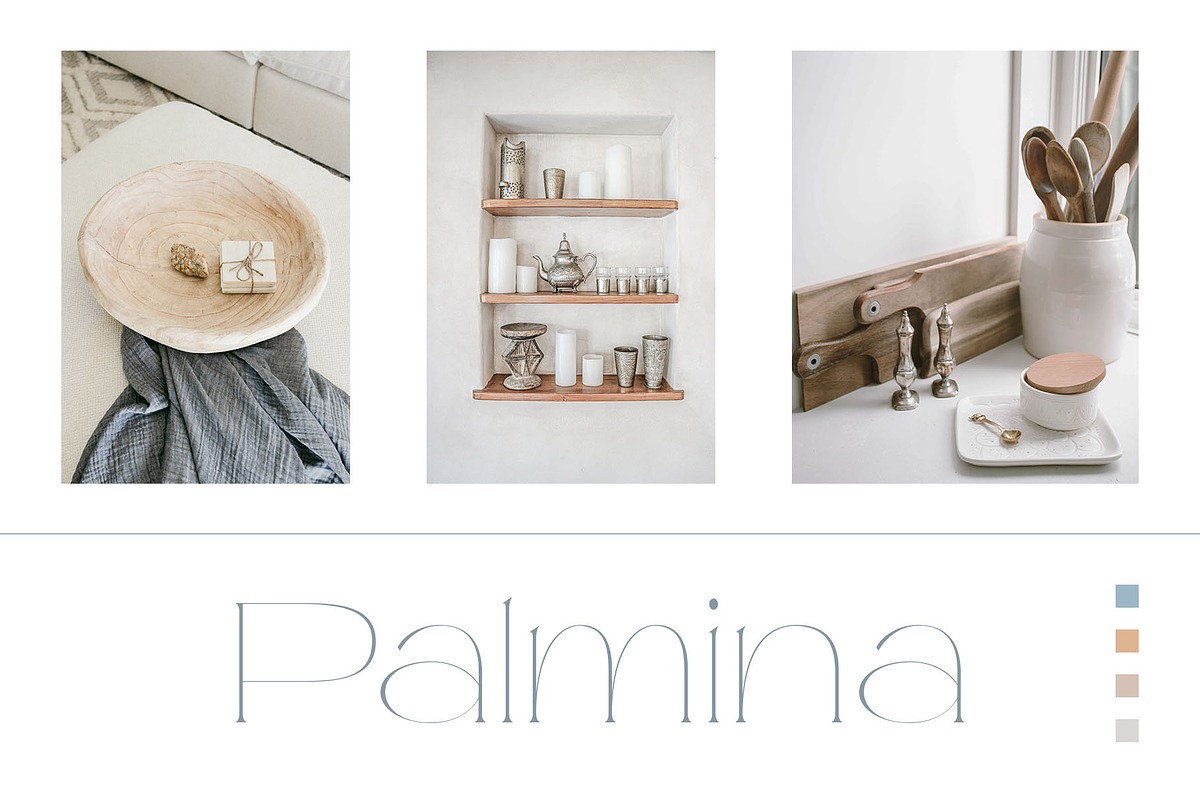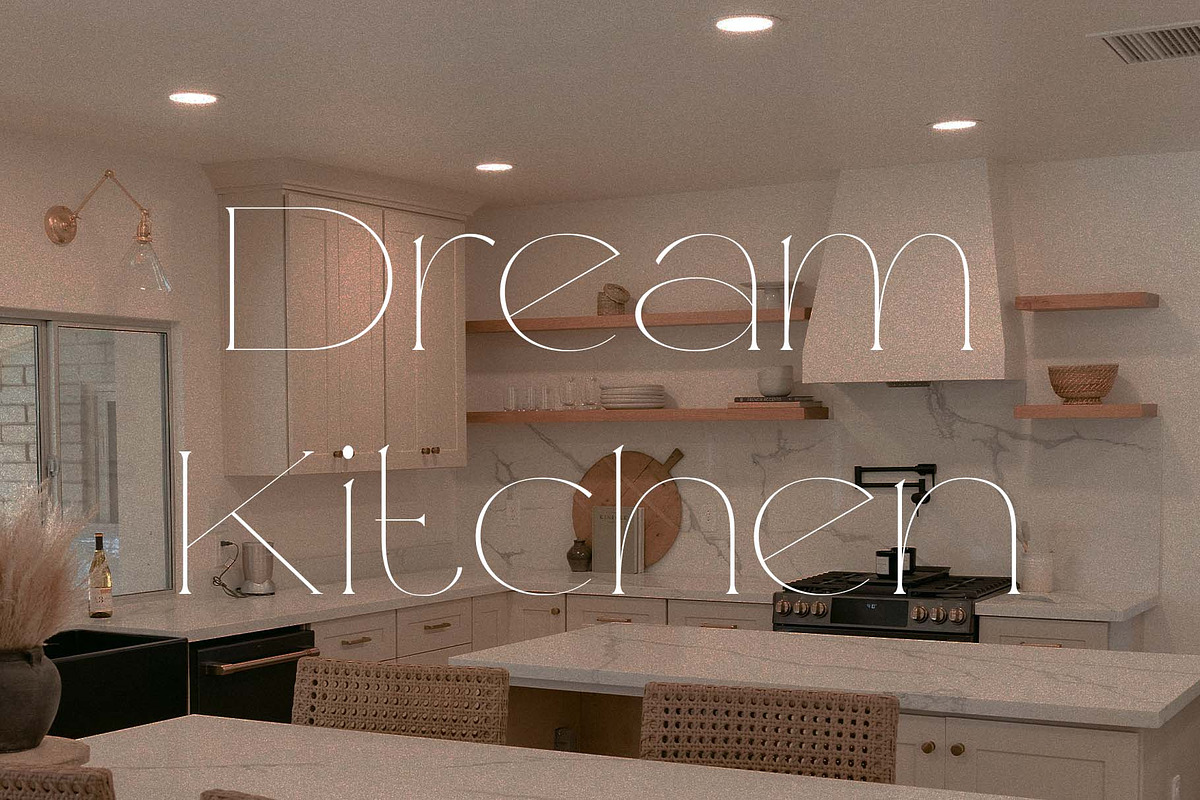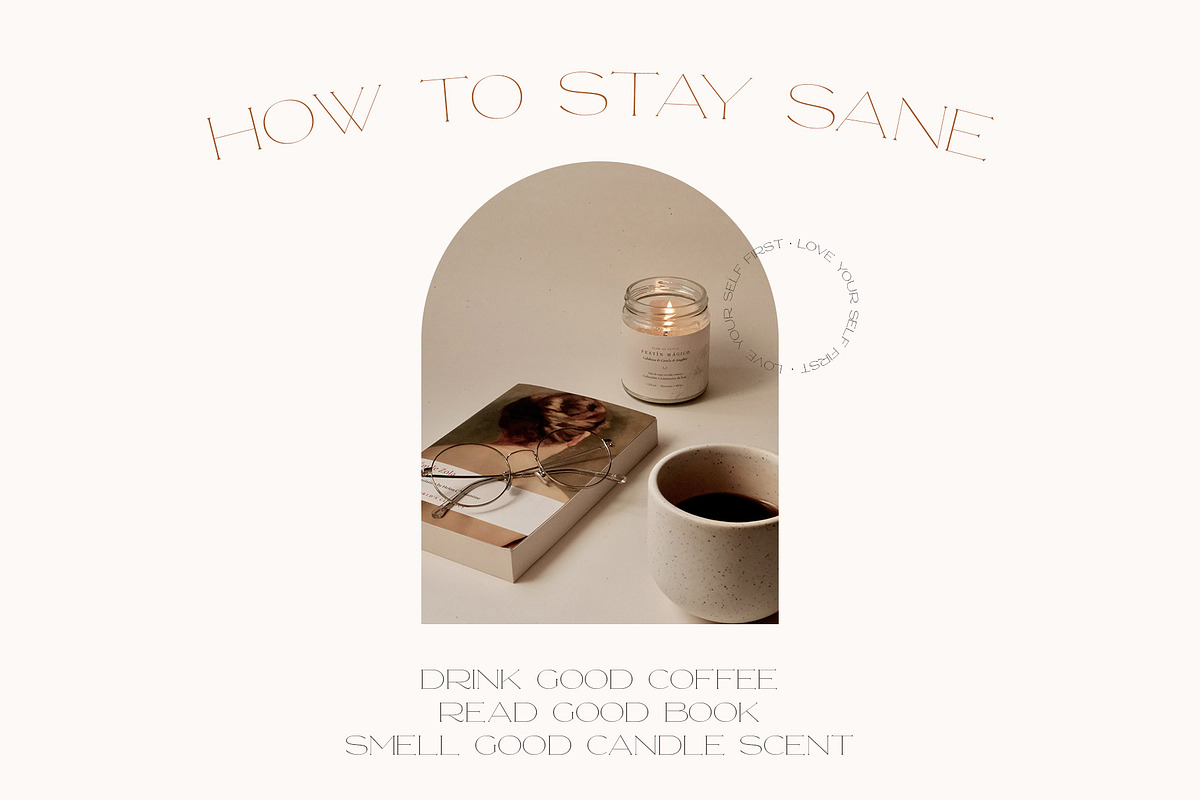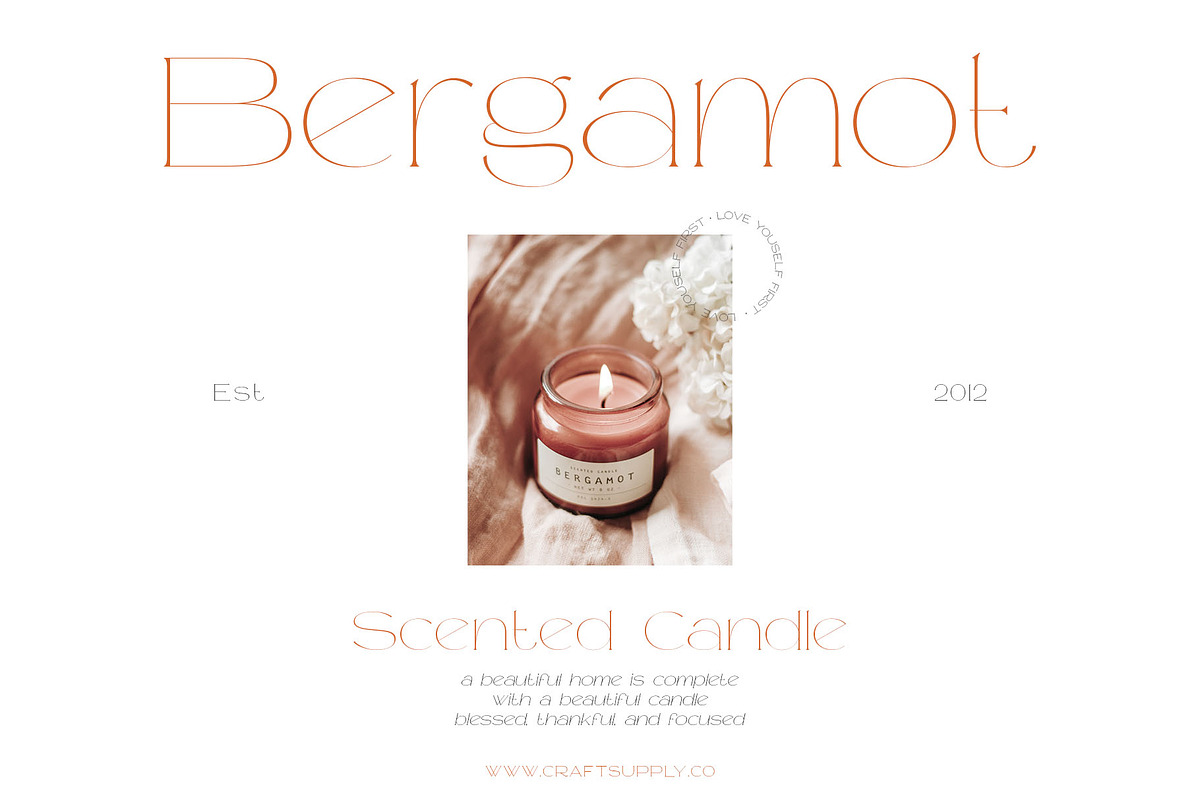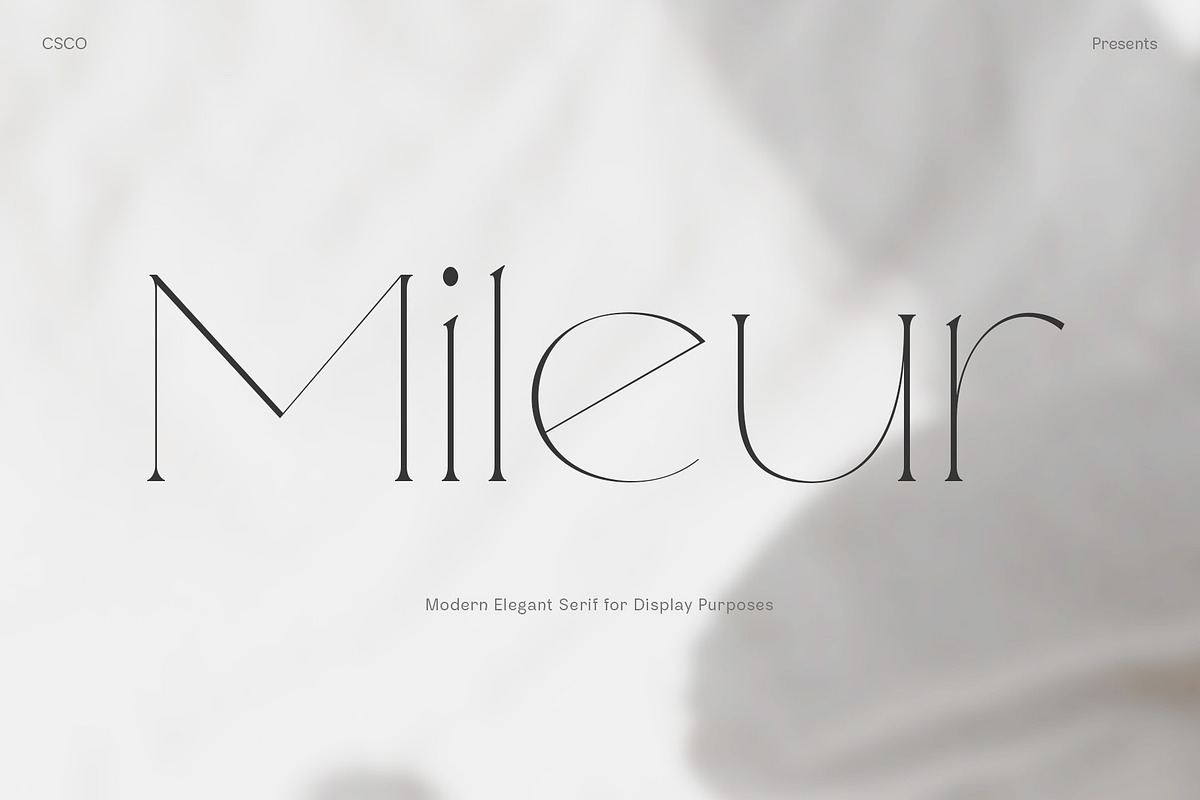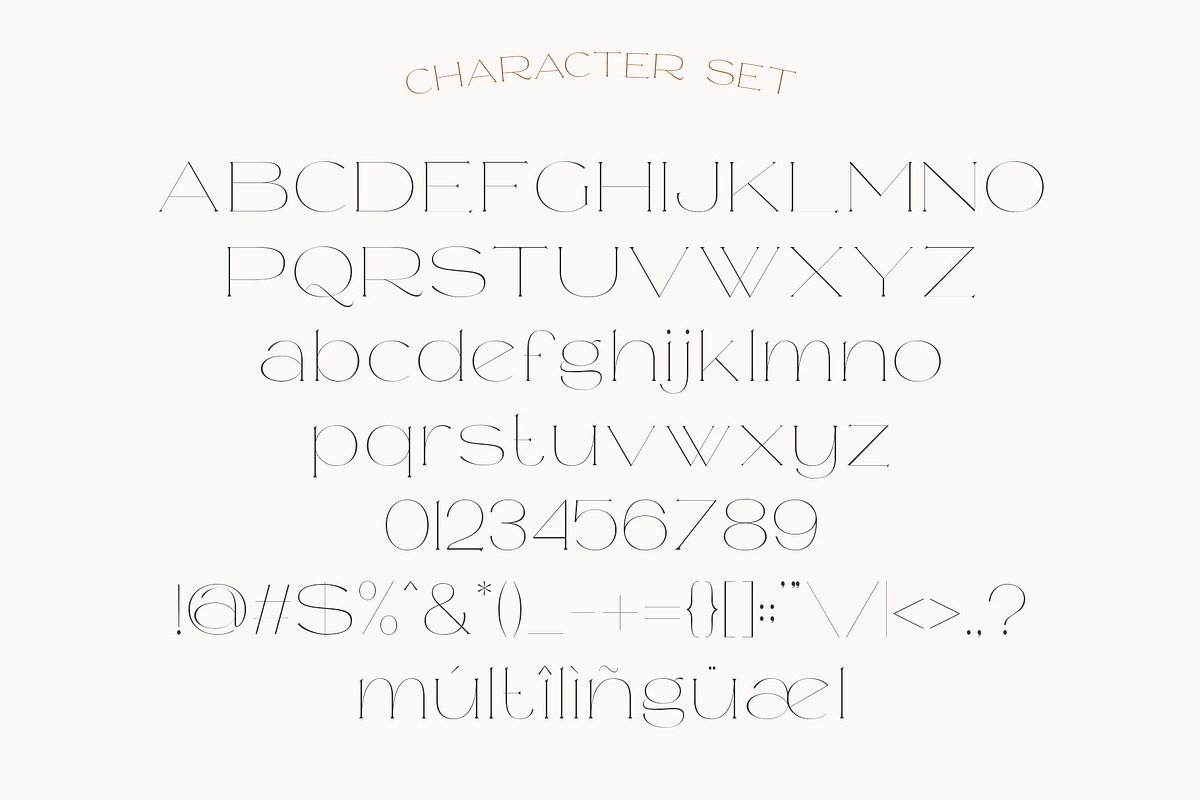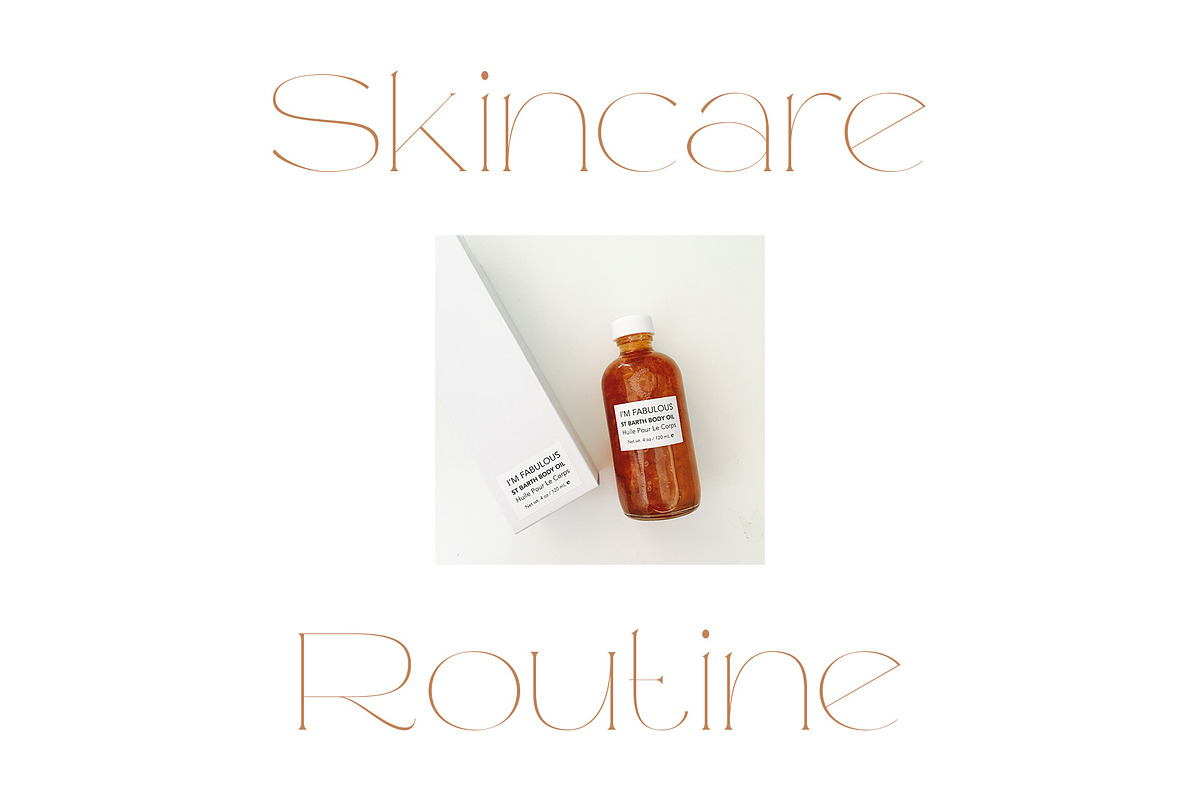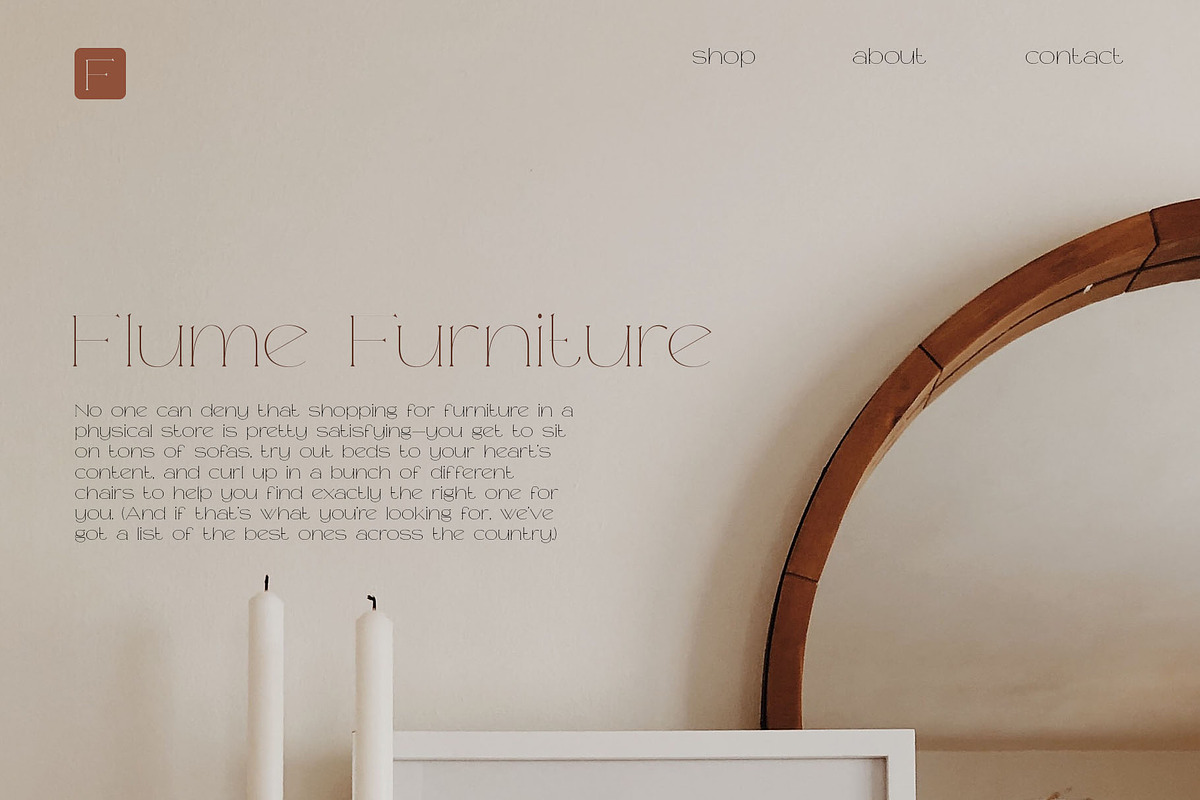
Mileur - Modern Elegant Serif
Introducing Mileur - Modern Elegant Serif.
Mileur is a modern serif features thin stroke, low-contrast modulation, with small serif that make it elegant and classy. It can be used to create almost all types of design projects like print materials. Just use your imagination and your project will become more alive and look great than ever with this typeface.
You want to make a greeting card or a package design, or even a brand identity, craft design, any DIY project, book title, wedding font, pop vintage design, retro design or any purpose to make your art / design project look pretty and trendy? Feel free to play with this typeface!